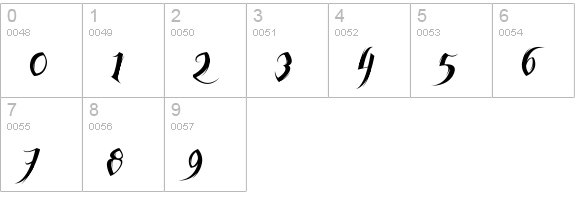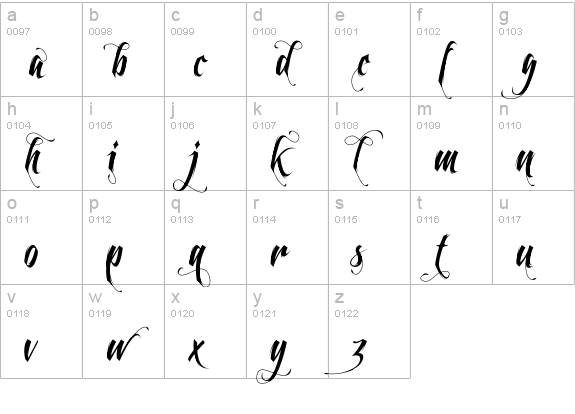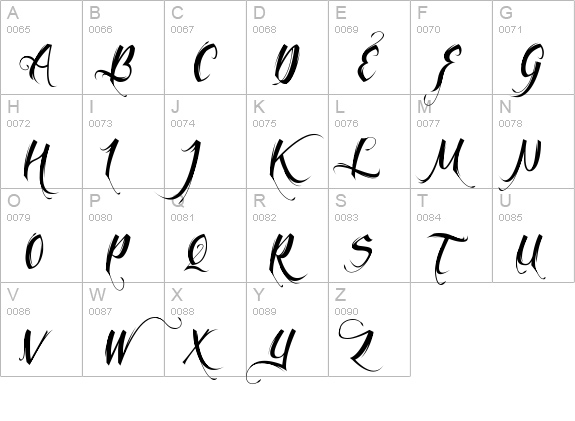
Feathergraphy Decoration Font Details
Feathergraphy Decoration font is a captivating and intricate typeface that adds a touch of elegance and sophistication to any design project. Its delicate and flowing strokes make it perfect for creating eye-catching headlines, logos, invitations, and more. With its ornate and decorative elements, Feathergraphy Decoration font brings a sense of vintage charm and timeless beauty to your designs. Every letter is meticulously crafted, featuring intricate swirls and loops that exude an air of sophistication and grace. What sets Feathergraphy Decoration font apart is not only its stunning aesthetics but also its accessibility. This font is freely available to download at FontsMarket.com, making it a valuable asset for designers on a budget or anyone looking to add a touch of elegance to their creative ventures. Whether you're creating wedding stationery, branding materials, or simply adding a touch of flair to your social media graphics, Feathergraphy Decoration font is sure to make a lasting impression. Its versatility allows it to effortlessly adapt to various design styles, from classic and traditional to modern and contemporary. Don't miss out on the opportunity to elevate your designs with Feathergraphy Decoration font. Download it for free at FontsMarket.com and let your creativity soar to new heights.